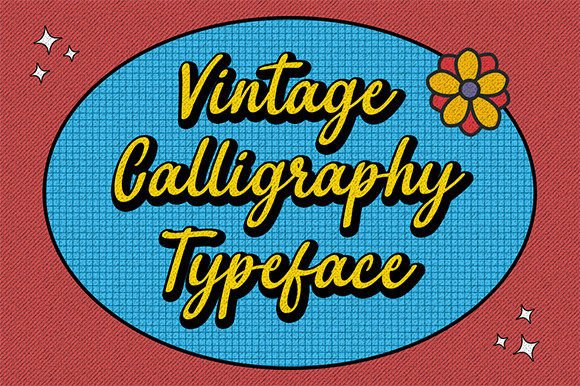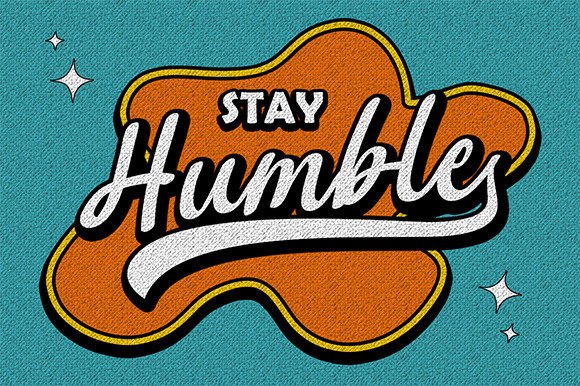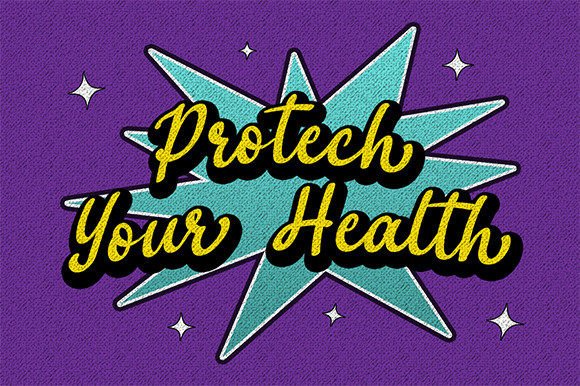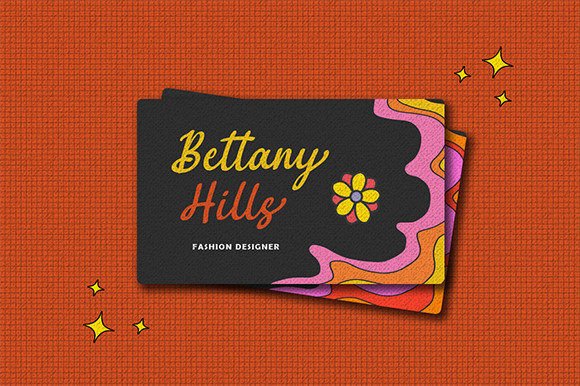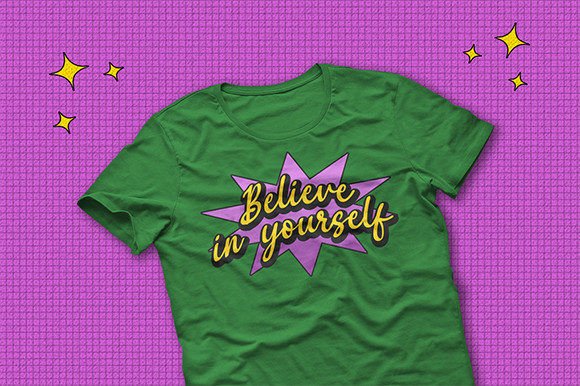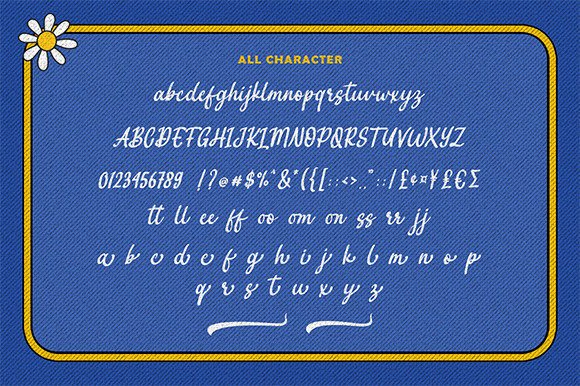
Introducing Anathema Font: The Ultimate Retro-Themed Script Font
Are you tired of using the same old fonts for your designs? Look no further! Anathema Font is here to revolutionize your creative projects with its beautiful hand strokes and retro-themed charm. This stunning script font is perfect for designers and crafters who want to add a touch of elegance and sophistication to their work.
What is Anathema Font?
Anathema Font is a carefully crafted script font that boasts beautiful hand strokes, giving it a unique and authentic feel. Its retro theme is reminiscent of classic designs from the past, making it an excellent choice for projects that require a vintage touch. With Anathema Font, you can quickly create awesome designs that are sure to impress.
Uses of Anathema Font
Anathema Font is incredibly versatile and can be used for a wide range of design projects, including:
- Branding: Create a lasting impression with Anathema Font’s elegant and sophisticated style.
- Quotes: Add a touch of class to your quotes with this beautiful script font.
- Logotype: Use Anathema Font to create a stunning logotype that reflects your brand’s personality.
- Headline: Make your headlines stand out with Anathema Font’s bold and eye-catching style.
- Titles: Use Anathema Font to add a touch of elegance to your titles and make them more engaging.
- Invitations: Create beautiful and sophisticated invitations for special occasions.
- Emblems: Design stunning emblems that showcase your brand’s identity.
- Logos: Use Anathema Font to create a unique and memorable logo for your business.
- Magazines: Add a touch of class to your magazine designs with Anathema Font.
- Books: Use Anathema Font to create stunning book covers and interior designs.
- Packaging: Make your packaging designs stand out with Anathema Font’s elegant style.
- Clothing: Use Anathema Font to create stunning designs for clothing and apparel.
- T-Shirt: Design eye-catching t-shirt designs with Anathema Font.
- Labels: Create beautiful and sophisticated labels for your products.
Why Choose Anathema Font?
So, why should you choose Anathema Font for your design projects? Here are just a few reasons:
- Unique and Authentic: Anathema Font’s hand strokes and retro theme give it a unique and authentic feel that sets it apart from other fonts.
- Elegant and Sophisticated: Anathema Font’s elegant and sophisticated style makes it perfect for high-end designs and projects.
- Versatile: Anathema Font can be used for a wide range of design projects, from branding and logotype to packaging and clothing.
- Easy to Use: Anathema Font is easy to use and can be quickly integrated into your design projects.
Tips for Using Anathema Font
Here are a few tips for using Anathema Font to get the most out of this amazing script font:
- Experiment with Different Sizes: Anathema Font looks great in a variety of sizes, so don’t be afraid to experiment and find the perfect size for your design.
- Pair with Other Fonts: Anathema Font pairs well with other fonts, so try pairing it with a bold font for a striking contrast.
- Use for Headlines: Anathema Font is perfect for headlines and titles, so use it to make your headlines stand out.
- Use for Branding: Anathema Font is a great choice for branding projects, so use it to create a lasting impression.